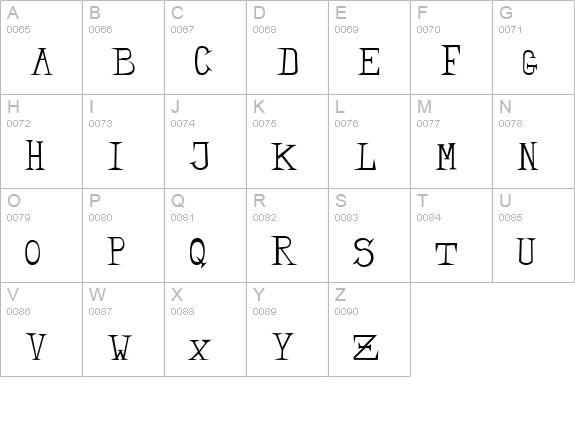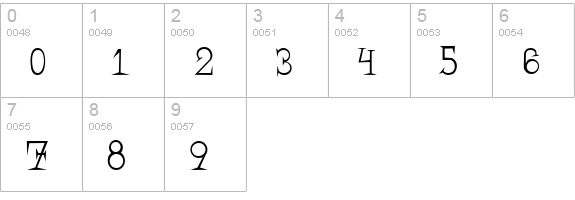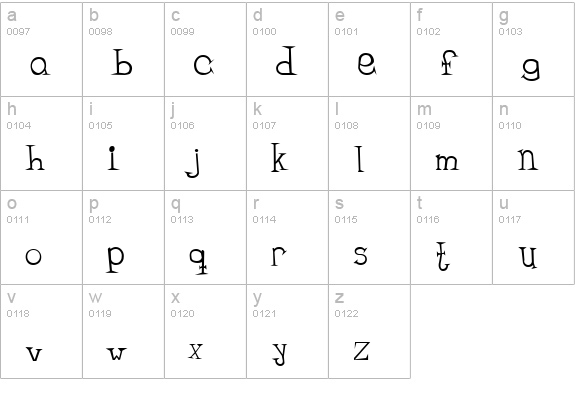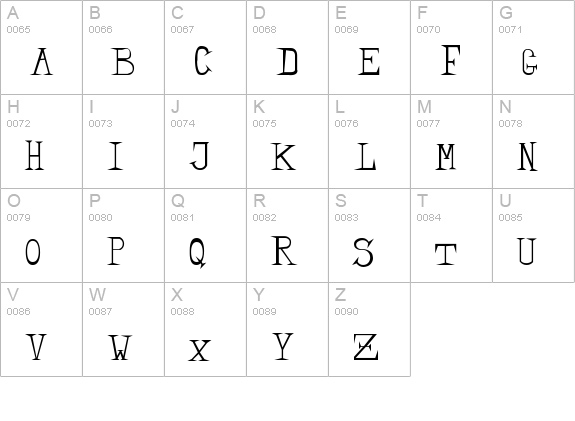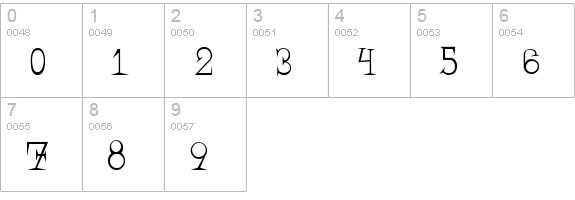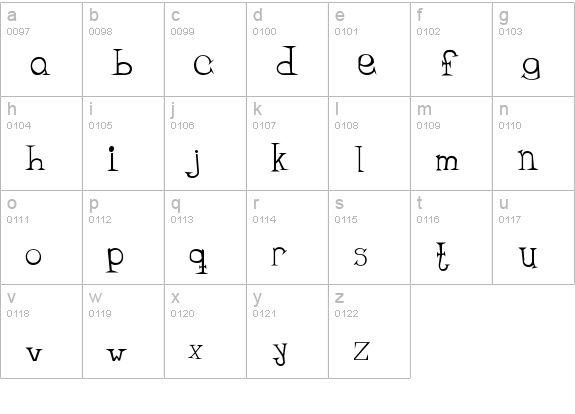
TR Bandit font is a dynamic and playful typeface that exudes a sense of adventure and mischief. Its bold, rugged letterforms give off a rebellious charm, making it perfect for projects that require a touch of edginess. With its unique design and distinct character, TR Bandit font is sure to make your text stand out and leave a lasting impression on your audience. Best of all, TR Bandit font is available for free download at FontsMarket.com. So whether you're looking to add a touch of boldness to your designs or just want to inject some fun into your projects, this font is the perfect choice. Download it today and let your creativity run wild with TR Bandit font.